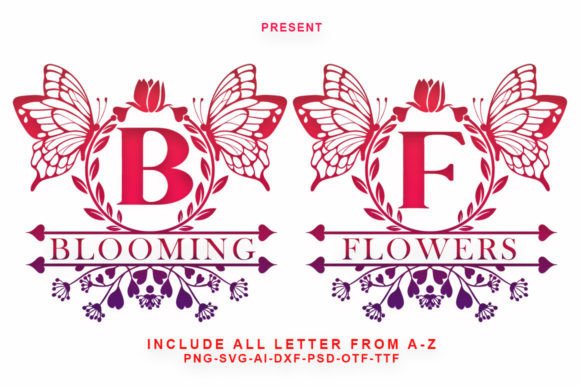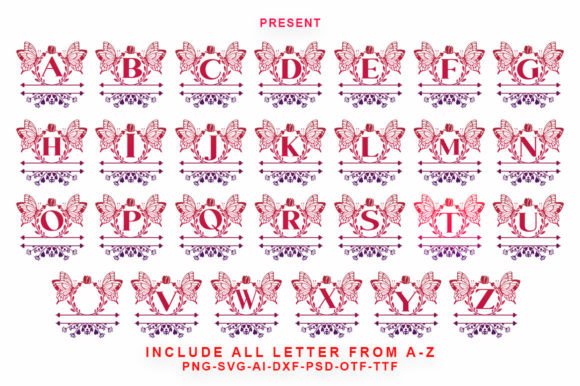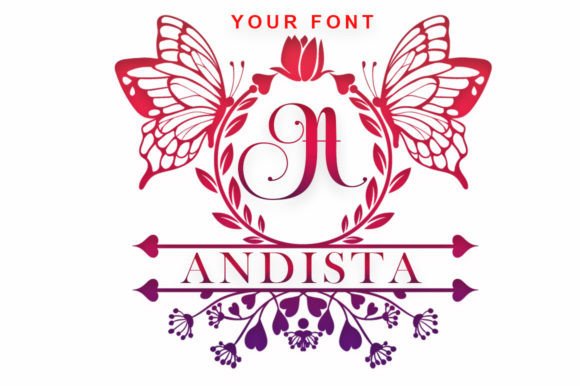
The Blossom Monogram Font: A Designer’s Dream Come True
I’ll never forget the time I was working on a wedding invitation project, and I just couldn’t find the perfect font to match the elegance and whimsy of the design. The client was specific about wanting something that felt both luxurious and playful, and I was on the verge of pulling my hair out. That’s when I stumbled upon the Blossom Monogram font, and let me tell you, it was love at first sight! 💕
An Honest Review of Blossom Monogram
- ✨ Elegant and decorative, perfect for creating stunning wedding invitations, stationery, and social media posts.
- ✅ PUA coded, making it easy to access all glyphs and swashes.
- 💖 The authentic feel of this font is unbeatable – it’s like having a piece of luxury stationery at your fingertips.
- 🎉 The lovely ornaments and swashes add a touch of whimsy and sophistication to any design.
While Blossom Monogram is an amazing font, there are a few things to keep in mind:
- 🤔 Some users might find the font a bit tricky to pair with other fonts, but with a little experimentation, you’ll find the perfect match.
- ⚠️ As with any decorative font, it’s best to use it in moderation – too much of a good thing can be overwhelming.
The Backstory Behind Blossom Monogram
Blossom Monogram was designed with love and care by a talented font designer who wanted to create a font that would evoke the feeling of luxury and whimsy. The designer drew inspiration from vintage stationery, elegant wedding invitations, and beautiful social media posts. The result is a font that’s both elegant and playful – perfect for adding a touch of sophistication to your designs.
Q: What is PUA coding, and how does it benefit me?
A: PUA (Private Use Area) coding allows you to access all glyphs and swashes easily, making it simple to create stunning designs with Blossom Monogram.
Q: How do I pair Blossom Monogram with other fonts?
A: Experiment with different font combinations to find the perfect match. You can also try pairing it with complementary fonts, such as a clean sans-serif or a elegant script.